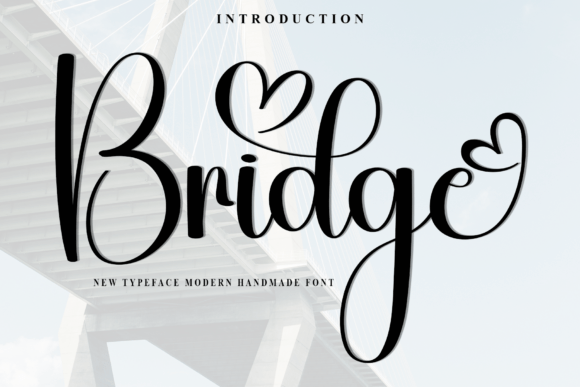
The Bridge Font: A Timeless Handwritten Treasure
Ah, the elusive perfect font. You know, that one that makes your design project go from meh to mesmerizing. I’ve been there, done that, and got the t-shirt (which, by the way, was probably designed with a font that was almost, but not quite, perfect). One of my most memorable design struggles was with a branding project for a boutique client. I was tasked with creating a logo that exuded elegance and whimsy, but my font choices were falling flat. That was until I stumbled upon the Bridge Font.
A Love Affair with Bridge Font
The Bridge Font is a lovely and timeless handwritten font that has become a staple in my design toolkit. Its unique and beautiful touch brings a level of sophistication and playfulness to any design project. Here are just a few things I love about Bridge Font:
- ✨ Unique and beautiful letterforms that add a touch of elegance to any design
- ✅ Highly versatile and works well for a variety of design projects, from logos to quotes
- 💫 Supports OpenType features, glyphs, and stylistic alternates, giving you plenty of creative freedom
- 👍 Easy to read and understand, making it perfect for body text or headlines
A Few Quirks to Keep in Mind
While Bridge Font is an amazing addition to any design project, there are a few quirks to keep in mind:
- 🤔 Some users have reported issues with kerning, particularly with certain letter combinations
- ⚠️ Not all platforms support OpenType features, so be sure to test your design before finalizing
The Story Behind Bridge Font
Bridge Font was designed with the intention of creating a beautiful, handwritten font that captures the essence of traditional typography. The designer aimed to create a font that would be both elegant and approachable, making it perfect for a wide range of design projects.
| Font Name | Bridge Font |
| What type of designs is Bridge Font best suited for? | Bridge Font is highly versatile and works well for logos, branding, quotes, and more. |
| Is Bridge Font suitable for body text? | Yes, Bridge Font is easy to read and understand, making it perfect for body text or headlines. |
| Does Bridge Font support OpenType features? | Yes, Bridge Font supports OpenType features, glyphs, and stylistic alternates, giving you plenty of creative freedom. |